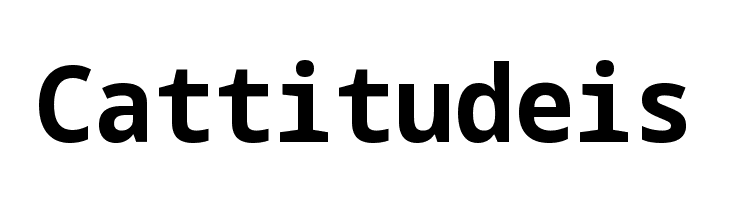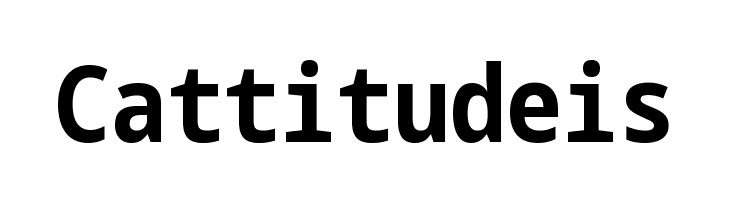
A bold, modern font with clean geometric shapes and uniform strokes.
A bold, condensed font with a modern and professional style.
A modern, extra condensed bold font with low contrast and clean lines.
A bold, semi-condensed sans-serif font with a modern and clean design.
A modern, clean, and bold condensed font ideal for UI design.
A modern, extra condensed, bold font with a clean and structured appearance.
A bold, semi-condensed font with a clean, modern look.
A bold, modern sans-serif font with clean lines and excellent readability.
A bold, semi-condensed geometric sans-serif with modern clarity.
Bold, geometric sans-serif with high legibility and clean lines.
A modern, extra condensed sans-serif font with bold weight for clear and impactful text.
A modern, semi-condensed bold font ideal for digital interfaces.
A bold, modern sans-serif font with excellent readability.
A bold, modern sans-serif font with clean lines and excellent readability.
A bold, monospaced sans-serif font with uniform spacing and modern design.
A bold, condensed monospaced sans-serif font with a modern and professional style.
A bold, extra-condensed monospaced sans-serif font ideal for coding and data alignment.
A bold, semi-condensed monospaced font with a clean and modern design.